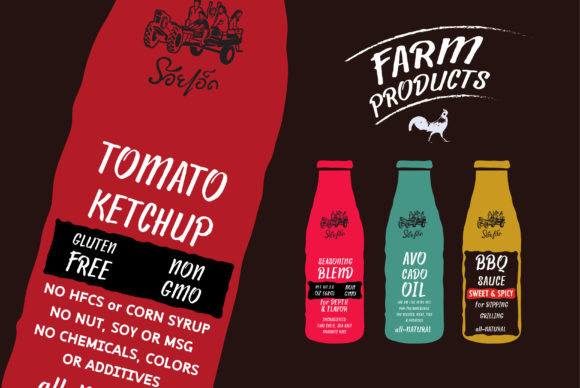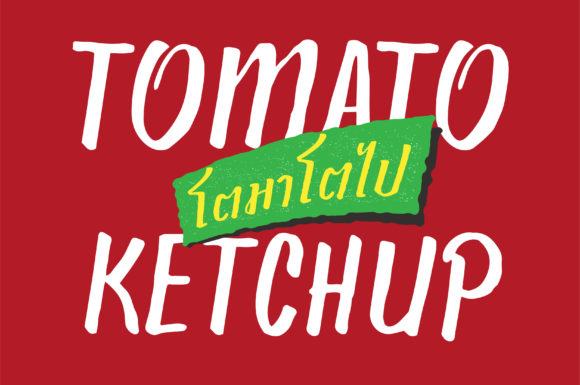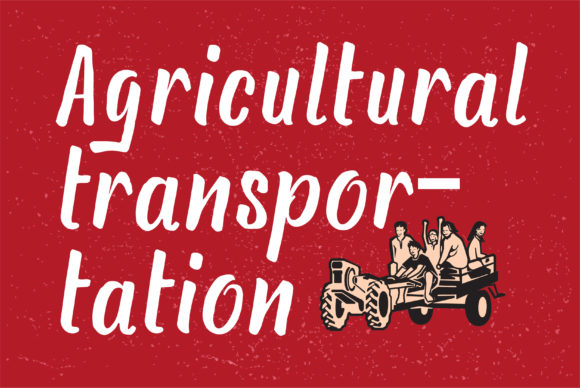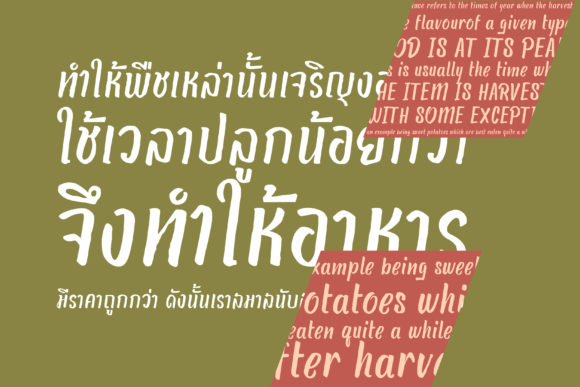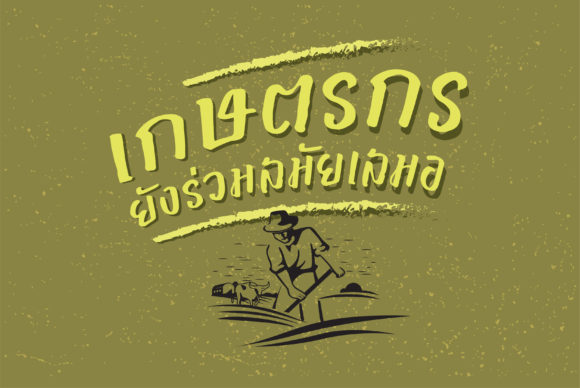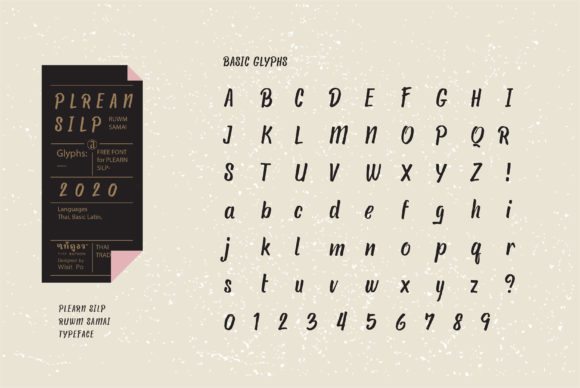
Introduction to Plearn Silp Font
Have you ever found yourself stuck in front of a blank page, eager to bring a creative project to life but struggling to find the right words? We’ve all been there. It’s a moment when the perfect design element can be the difference between a mediocre and a masterpiece. This is where the Plearn Silp Font comes in – a beautiful, handcrafted font that can add a touch of personality to any project.
With its friendly and playful vibe, the Plearn Silp Font is a design resource that can elevate your creations in an instant. Whether you’re working on a free download or a high-quality design, this font is sure to make a statement. And the best part? It’s a high-quality, versatile font that can be used for a wide range of creative projects, from social media graphics to blog posts and beyond.
- High-quality design resource with a unique and creative style, perfect for various projects.
- Comes with a transparent background, allowing for easy customization and integration into various designs.
- Designed with high resolution, ideal for use in large-scale creative projects, such as billboards or posters.
- Part of a comprehensive font collection, offering a wide range of characters and symbols for added versatility.
Honest Review: Plearn Silp Font
I recently came across the Plearn Silp Font, and I must say it’s been a game-changer for my creative projects. This free download has been a fantastic addition to my design resource library.
One of the things that stood out to me was the high quality of the font. It’s crisp, clean, and perfect for use on transparent backgrounds. The design is modern and sophisticated, making it a great choice for any project that requires a touch of elegance.
Here are some things that work well with the Plearn Silp Font:
- High-quality design that’s perfect for modern projects
- Crisp and clean lines that make it ideal for use on transparent backgrounds
- Great choice for creative projects that require a touch of sophistication
While the Plearn Silp Font is an excellent addition to any design resource library, there are a few limitations to be aware of:
- Only available in a limited range of weights and styles
- Not ideal for use in complex typography or multi-font projects
Overall, I’m thoroughly impressed with the Plearn Silp Font. Its high quality, modern design, and free download make it a must-have for any designer. Just be aware of the limitations, and you’ll be all set to create stunning designs with this fantastic font.
The Plearn Silp Font is ideal for use in a variety of creative projects, including logos, posters, and social media graphics. You can use it in combination with a transparent background to create a modern and eye-catching design.
The Plearn Silp Font is commonly used in:
Logo design
Poster design
Social media graphics
Business cards